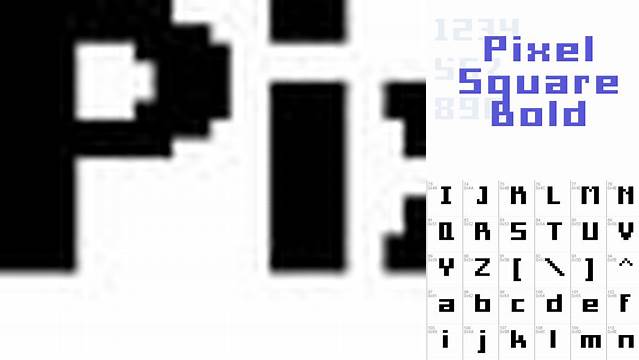
Pixel Font: Free Downloads And Creative Uses
Hey guys! Ever been on the hunt for that perfect font that screams retro, digital, and bold all at once? Look no further! We're diving deep into the world of the pixel grid square bold font, exploring what makes it so cool, where you can snag it for free, and how to use it in your projects to make them pop. Let’s get started!
H2 What is a Pixel Grid Square Bold Font?
Okay, so what exactly is a pixel grid square bold font? Imagine those classic 8-bit video games we all know and love. The font style is inspired by this, where each character is formed using a grid of squares, giving it that distinct, blocky appearance. When we say bold, we mean the letters are thicker and more pronounced, making them stand out even more. This font style is a real head-turner and great if you want to make a statement. It’s perfect for adding a touch of nostalgia, or a modern, techy vibe, depending on how you use it. Using it in logos, posters, or digital designs can instantly give your work a unique edge.
H2 Why Choose a Pixel Grid Font?
Why should you even bother with a pixel grid square bold font in the first place? Well, for starters, it's all about the aesthetic. This font instantly evokes a sense of retro gaming, old-school computers, and digital art. It’s a fantastic way to inject some personality and character into your designs. Think about it: a clean, modern font might be suitable for some projects, but sometimes you need something with a bit more oomph. The pixel grid square bold font can provide that punch, making your text visually interesting and memorable. It's especially useful when you’re aiming for a specific theme or trying to capture a certain era. Plus, it’s just plain cool!
H2 Using Pixel Fonts in Graphic Design
So, you've got your pixel grid square bold font – now what? Well, the possibilities are endless! In graphic design, these fonts are perfect for creating eye-catching headlines, logos, and posters. Think about using them in designs for video games, tech companies, or even music events. Because of their retro vibe, they can also be a great choice for projects aiming to evoke a sense of nostalgia. Experiment with different colors, sizes, and spacing to see what looks best. Don't be afraid to get creative and push the boundaries. Using pixel fonts strategically can really make your designs stand out from the crowd.
H2 Pixel Fonts for Web Design
Don't think that pixel grid square bold font is just for print! These fonts can also look fantastic on websites. You can use them to create unique headers, navigation menus, or even to highlight important information. Keep in mind that readability is key, so choose font sizes that are easy to read on different devices. Also, make sure the font you choose is web-safe, meaning it will display correctly in different browsers. Services like Google Fonts can be a lifesaver here, as they offer a wide range of pixel fonts that are optimized for web use. When used effectively, a pixel font can add a cool, retro touch to your website and make it more engaging for visitors.
H2 Pixel Fonts in Game Development
Of course, we can't talk about pixel grid square bold fonts without mentioning game development! These fonts are practically synonymous with retro gaming, so they’re a perfect choice for indie game developers looking to capture that classic feel. Use them for in-game text, menus, and HUD elements to create an authentic 8-bit experience. Just remember to keep the font legible, especially on smaller screens. A good pixel grid square bold font can greatly enhance the overall aesthetic of your game and immerse players in a world of pixels and nostalgia. They can evoke feelings of nostalgia and are generally very versatile when used in the right context.
H3 Bold vs. Regular Pixel Fonts
When choosing a pixel grid square bold font, consider whether you need the bold version or the regular one. Bold fonts are thicker and more prominent, which can make them great for headlines or emphasizing key words. Regular fonts are thinner and more subtle, making them a better choice for body text or smaller details. Experiment with both to see which one works best for your project. Sometimes, a combination of both can be effective, using the bold font for headings and the regular font for the body text. The key is to find a balance that is visually appealing and easy to read.
H3 Square vs. Rounded Pixel Fonts
Another variation to consider is whether to go for square or rounded pixel grid square bold fonts. Square fonts have sharp, angular edges, giving them a more rigid and technical look. Rounded fonts, on the other hand, have smoother, more organic curves, making them appear softer and more approachable. The choice depends on the overall aesthetic you're aiming for. Square fonts might be better suited for tech-related or futuristic designs, while rounded fonts could work well for more playful or casual projects. Try out both types to see which one aligns better with your vision.
H3 Pixel Font Generators
Feeling extra creative? Why not try creating your own pixel grid square bold font using a pixel font generator? There are several online tools that allow you to design your own custom fonts, pixel by pixel. This can be a fun and rewarding way to create a truly unique font that perfectly matches your project's needs. Some popular pixel font generators include FontStruct and BitFontMaker. Experiment with different shapes, sizes, and spacing to create a font that is truly one-of-a-kind.
H3 Pixel Font Pairing: What Goes Well?
Choosing the right font to pair with your pixel grid square bold font can make a big difference in the overall look and feel of your design. Generally, it's a good idea to pair a pixel font with a more modern, clean font to create a balance between retro and contemporary styles. Think about using a sans-serif font like Arial or Helvetica for body text, and reserving the pixel font for headings or accents. Alternatively, you could pair it with another retro font to create a cohesive vintage look. Experiment with different combinations to see what works best for your project.
H3 Using Pixel Fonts for Logos
A pixel grid square bold font can be an excellent choice for logo design, especially if you want to convey a sense of retro gaming, technology, or innovation. Think about brands like Minecraft or Twitch, which use pixel-inspired fonts in their logos. When using a pixel font for a logo, keep it simple and memorable. Choose a font that is easy to read and recognizable, even at small sizes. Also, make sure the font reflects the overall brand identity and values. A well-designed pixel font logo can be a powerful way to communicate your brand's message.
H3 Best Pixel Fonts for T-Shirts
Want to create a cool, retro-themed t-shirt? A pixel grid square bold font can be a great choice! These fonts are perfect for creating eye-catching designs that stand out from the crowd. When choosing a pixel font for a t-shirt, consider the overall design and message you want to convey. A bold, blocky font can be great for making a statement, while a more subtle pixel font can work well for a more understated design. Also, think about the colors you'll be using and how they'll complement the font. With a little creativity, you can create a t-shirt that is both stylish and nostalgic.
H3 Pixel Art and Typography
Pixel art and typography go hand in hand. Combining pixel art with a pixel grid square bold font can create a cohesive and visually appealing design. Think about using pixel art to create icons, illustrations, or backgrounds that complement your pixel font. You can even create pixel art versions of your own logo or brand elements. When combining pixel art and typography, pay attention to the overall balance and composition. Make sure the elements work together harmoniously to create a visually stunning design. They both have a common aesthetic style, which can be complimentary to designs in general.
H3 The Psychology of Pixel Fonts
Fonts, like colors, have a psychological impact on viewers. Pixel grid square bold fonts often evoke feelings of nostalgia, retro gaming, and technology. They can also convey a sense of innovation, creativity, and playfulness. When choosing a pixel font for your project, consider the psychological associations you want to evoke. A pixel font can be a powerful tool for communicating your brand's message and connecting with your target audience.
H3 Pixel Fonts and Brand Identity
Your brand identity is more than just your logo. It's the overall look and feel of your brand, including the colors, fonts, and imagery you use. A pixel grid square bold font can be an effective way to create a unique and memorable brand identity. If your brand is associated with technology, gaming, or retro culture, a pixel font can be a perfect fit. However, it's important to use pixel fonts strategically and consistently across all your branding materials to create a cohesive brand identity.
H3 Pixel Fonts in Social Media
Want to make your social media posts stand out? Using a pixel grid square bold font can be a great way to grab attention and engage your audience. Think about using pixel fonts in your social media graphics, headlines, or even your profile bio. However, be mindful of readability, especially on smaller screens. Choose a font size that is easy to read and make sure the font complements the overall design of your post. With a little creativity, you can use pixel fonts to create social media content that is both visually appealing and engaging.
H3 Legibility Considerations for Pixel Fonts
While pixel grid square bold fonts can be visually appealing, it's important to consider legibility. Pixel fonts, especially those with small sizes or intricate designs, can be difficult to read on certain screens or in certain contexts. When using pixel fonts, always prioritize readability. Choose a font size that is easy to read and make sure the font contrasts well with the background. Also, consider the target audience and the context in which the font will be used. A font that looks great on a large desktop screen might not be as effective on a small mobile device.
H3 Combining Pixel Fonts with Modern Design
One of the coolest things you can do is mix pixel grid square bold fonts with modern design elements. Think clean layouts, bold colors, and lots of white space. The contrast between the retro font and the modern elements can create a really striking and visually interesting effect. It's all about finding the right balance and not being afraid to experiment. You can use the pixel font for headlines or accents, and then use a clean, modern font for the body text. This way, you get the best of both worlds: a touch of nostalgia and a modern, sleek aesthetic.
H3 Pixel Fonts for Retro Gaming Websites
If you're building a website dedicated to retro gaming, then using a pixel grid square bold font is a no-brainer! It's the perfect way to capture the essence of classic games and create a truly immersive experience for your visitors. Use the font for headlines, menus, and even in your website's logo. Just make sure to choose a font that is easy to read and that complements the overall design of your site. You can also use pixel art and other retro design elements to create a cohesive and visually appealing website.
H3 Creating a Retro Vibe with Pixel Fonts
Want to give your project a retro vibe? Using a pixel grid square bold font is one of the easiest ways to do it. These fonts instantly evoke a sense of nostalgia and can transport viewers back to the golden age of gaming and computing. Combine the pixel font with other retro design elements, such as vintage color palettes, grainy textures, and 8-bit graphics, to create a truly authentic retro look. Whether you're designing a poster, a website, or a video game, a pixel font can help you capture that retro magic.
H3 Licensing Considerations for Free Pixel Fonts
When downloading free pixel grid square bold fonts, it's super important to pay attention to the licensing terms. Not all free fonts are created equal. Some fonts may be free for personal use only, while others may be free for commercial use as well. Before you use a font in a project that you plan to sell or use for business purposes, make sure to check the license to make sure you're allowed to use it. Otherwise, you could end up in legal trouble. Websites like DaFont and FontSpace usually provide licensing information for each font, so be sure to read it carefully.
H3 Pixel Fonts in Motion Graphics
Pixel grid square bold fonts can look amazing in motion graphics. Imagine using a pixel font to create animated titles, lower thirds, or even entire explainer videos. The retro aesthetic of the font can add a unique and engaging touch to your motion graphics. Experiment with different animation techniques, such as pixelation, glitch effects, and retro transitions, to create a truly eye-catching visual experience. Just make sure to keep the font legible and to use it in a way that complements the overall design of your motion graphics.
H3 Pixel Fonts for Educational Materials
Believe it or not, pixel grid square bold fonts can even be used in educational materials! Think about using them to create worksheets, presentations, or even educational games. The retro aesthetic of the font can make learning more fun and engaging for students, especially those who are interested in technology or gaming. Just make sure to choose a font that is easy to read and that is appropriate for the age group you're targeting. You can also use pixel art and other retro design elements to create a visually appealing and educational experience.
H3 The Future of Pixel Fonts
What does the future hold for pixel grid square bold fonts? While they may be rooted in the past, these fonts are still relevant and popular today. As technology continues to evolve, we can expect to see pixel fonts used in new and innovative ways. Think about using them in virtual reality, augmented reality, or even in futuristic interfaces. The pixel aesthetic is timeless and can be adapted to fit a wide range of design styles. So, whether you're a designer, a developer, or just a fan of retro gaming, pixel fonts are sure to remain a relevant and exciting part of the design landscape for years to come.
H3 Pixel Fonts and Accessibility
When using pixel grid square bold fonts, it's crucial to consider accessibility. These fonts, due to their blocky and sometimes less defined shapes, can pose challenges for individuals with visual impairments or reading difficulties. To ensure your content is accessible, provide alternative text options or use these fonts sparingly, especially in large blocks of text. Additionally, you can offer options to increase font size or switch to a more readable font style. Prioritizing accessibility ensures that your designs are inclusive and reach a wider audience.
H3 Customizing Pixel Fonts
Customizing a pixel grid square bold font can significantly enhance its appeal and usability in specific projects. Tools like font editors allow you to tweak individual pixel shapes, adjust spacing, and even add unique design elements. Consider modifying the font to better fit your brand's aesthetic or to improve legibility in certain contexts. Experiment with different weights, styles, and character sets to create a bespoke font that perfectly aligns with your creative vision. Customization ensures that your pixel font stands out and effectively communicates your intended message.
H3 Troubleshooting Common Pixel Font Issues
Encountering issues with pixel grid square bold fonts is not uncommon, particularly when dealing with compatibility or rendering. Problems like pixelation, distortion, or incorrect display can arise due to various factors, including browser settings, font formats, or scaling issues. To troubleshoot these problems, ensure that your font files are correctly installed and supported by the platform you're using. Adjusting anti-aliasing settings, experimenting with different font formats (e.g., TTF, OTF, WOFF), and optimizing font sizes can also help resolve these issues and ensure your pixel fonts display correctly.
H3 Pixel Fonts and UI Design
In user interface (UI) design, pixel grid square bold fonts can introduce a unique, retro-inspired aesthetic. These fonts work particularly well in interfaces for games, emulators, or applications aiming for a vintage look. However, use them judiciously to avoid compromising readability. Employ pixel fonts for headers, labels, or decorative elements, and opt for more legible fonts for body text or crucial instructions. Balancing visual appeal with usability ensures that your UI is both stylish and functional.
H3 Pixel Fonts and Digital Art
Digital artists frequently incorporate pixel grid square bold fonts to enhance their creations. Whether you're designing pixel art landscapes, character sprites, or graphic overlays, these fonts add an authentic touch. Experiment with different font sizes and styles to complement your artwork. Consider using pixel fonts for captions, titles, or in-world text elements. Aligning the font style with the overall aesthetic of your digital art ensures a cohesive and visually striking result.
So there you have it, folks! Everything you need to know about pixel grid square bold fonts, from where to download them for free to how to use them in your creative projects. Now go out there and make some pixel-perfect magic!